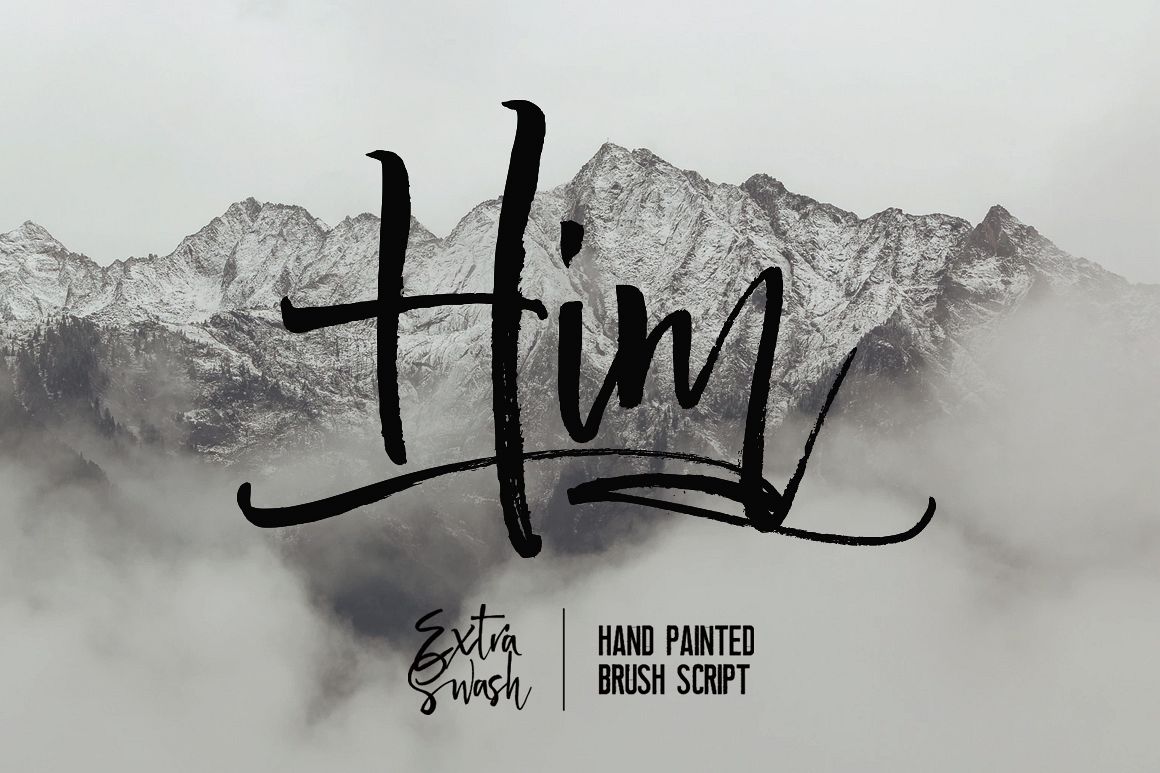
Him
I want to introduce “Him Handwriting”. Him is a hand painted brush script font with a touch of elegant handwriting, looks very classy, modern, and unisex. Good for your logo design quotes, merch, watermark, brand logo, for wedding font, magazine font contain, packaging, signatures, and others, can be customized to your need. you can see in the preview as an example, looks expensive and classy. I believe we have the same perception.Him features full-featured regular and swash versions, with the ligature, and multilingual and extra swash bonuses to further enhance your logo look. I already show completely in the preview.